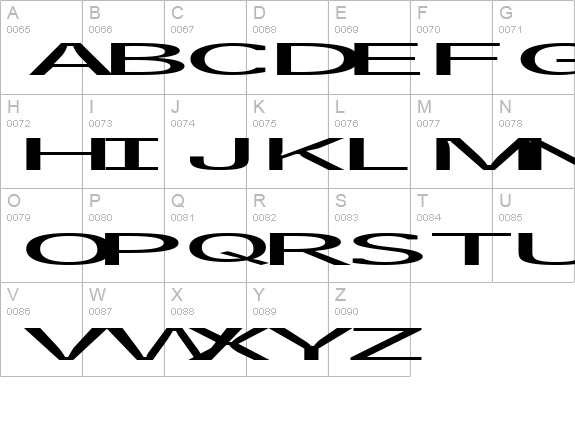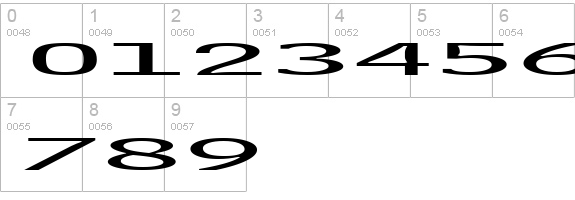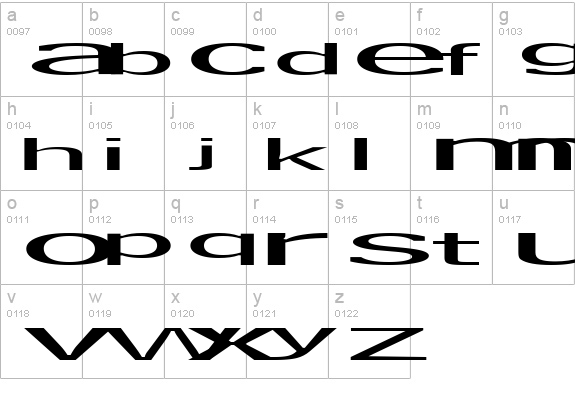
plakativo Font Details
Plakativo, a bold and modern font, is the perfect choice for designers looking to make a statement. With its clean lines and strong presence, Plakativo commands attention and adds a touch of sophistication to any design project. This versatile font is ideal for a wide range of applications, from branding and logo design to advertising and packaging. Its unique character and bold letterforms make it stand out from the crowd, ensuring that your message is delivered with impact. But what makes Plakativo even more appealing is its accessibility. This incredible font is available for free download at FontsMarket.com, making it easily accessible to designers and creatives worldwide. Whether you're a professional designer or an aspiring artist, Plakativo is here to help you bring your vision to life. Don't miss out on this amazing opportunity to elevate your designs with Plakativo. Download it for free today at FontsMarket.com and let your creativity shine.